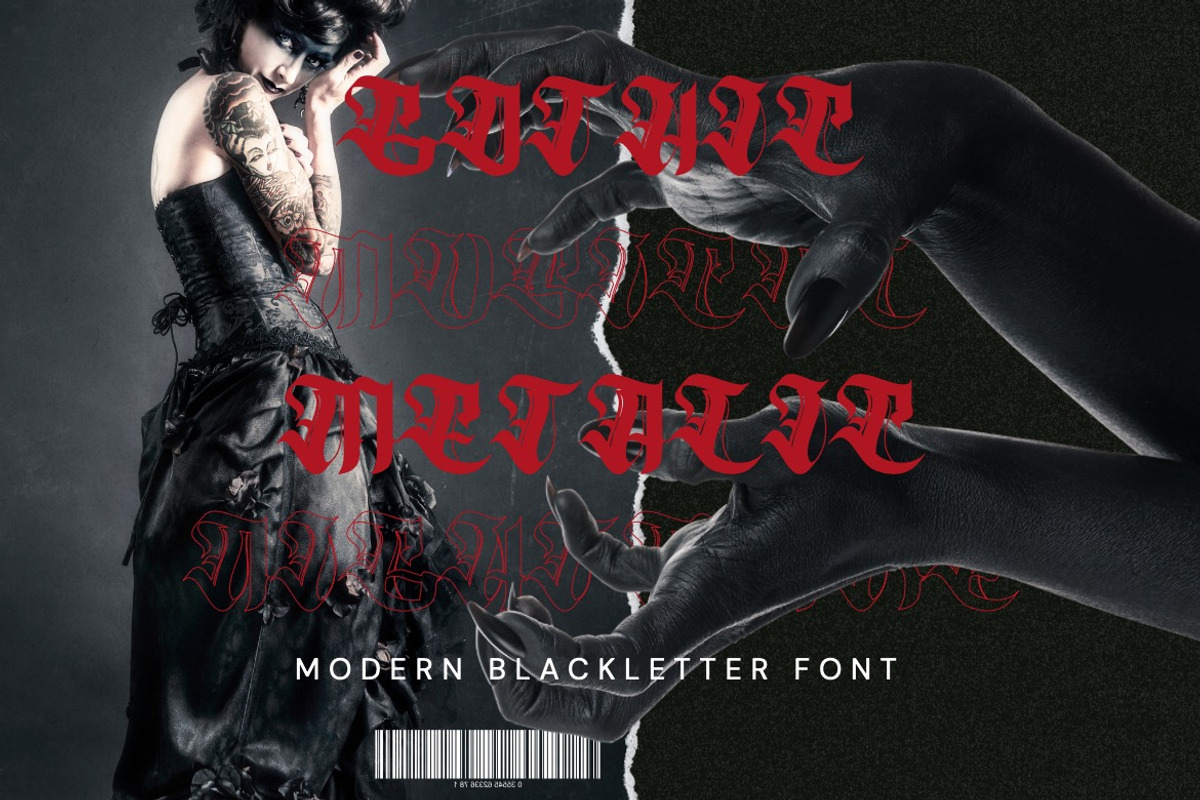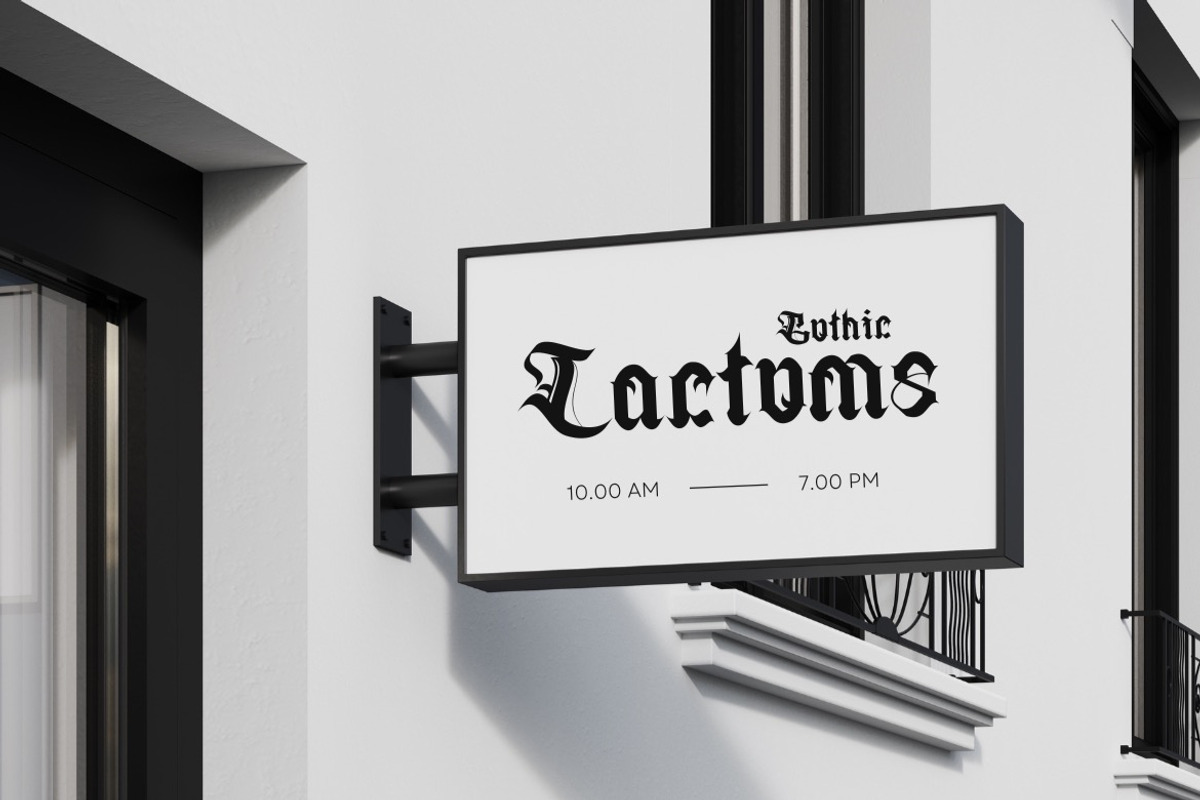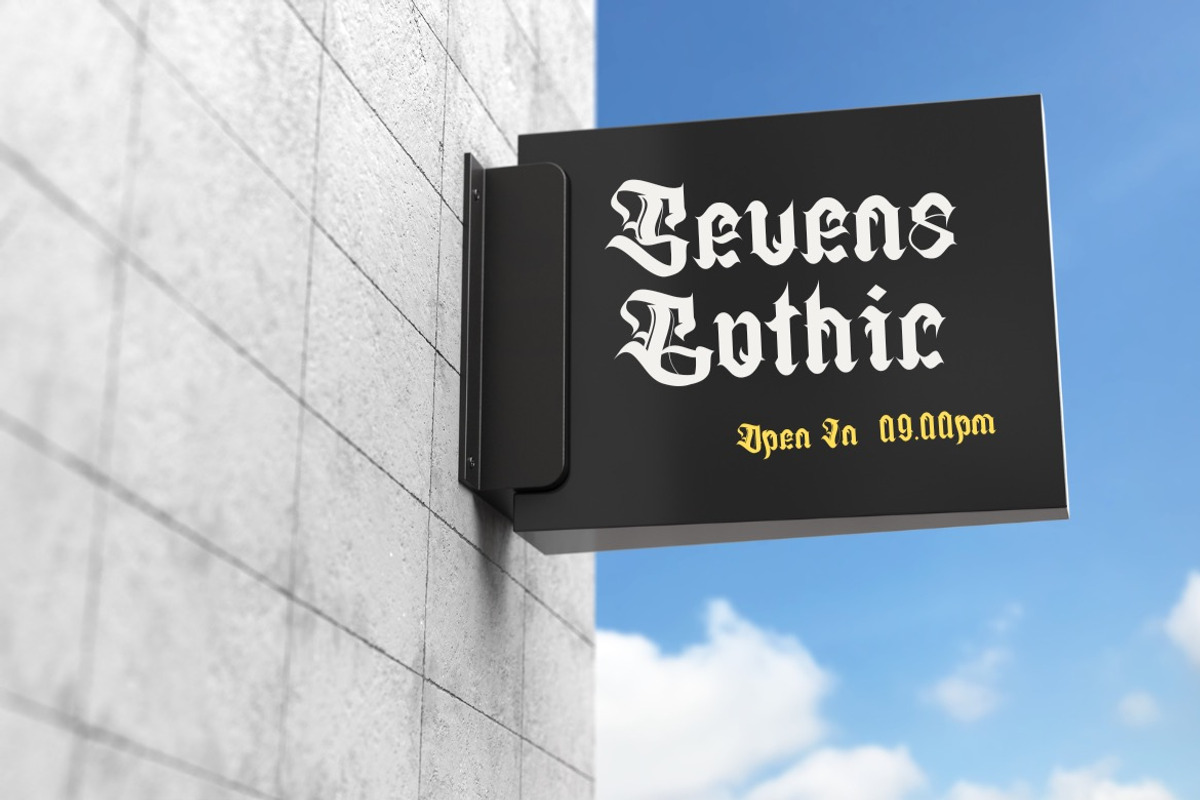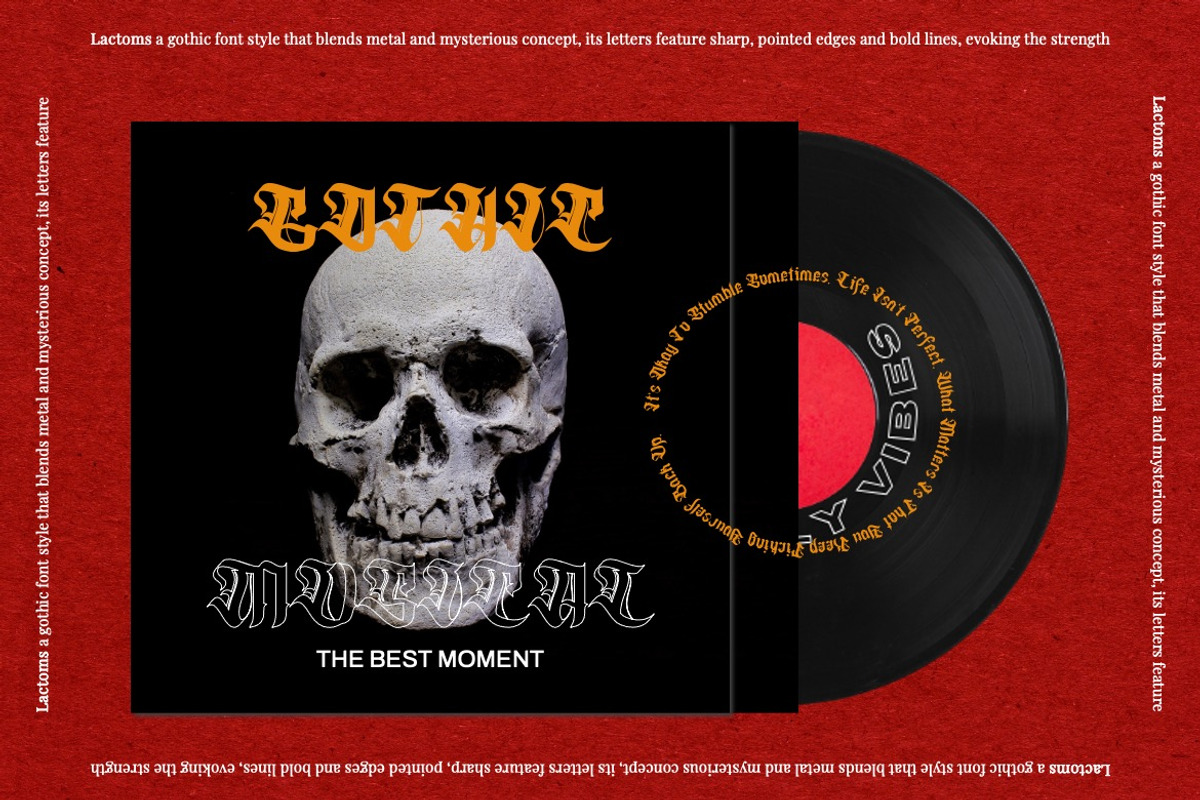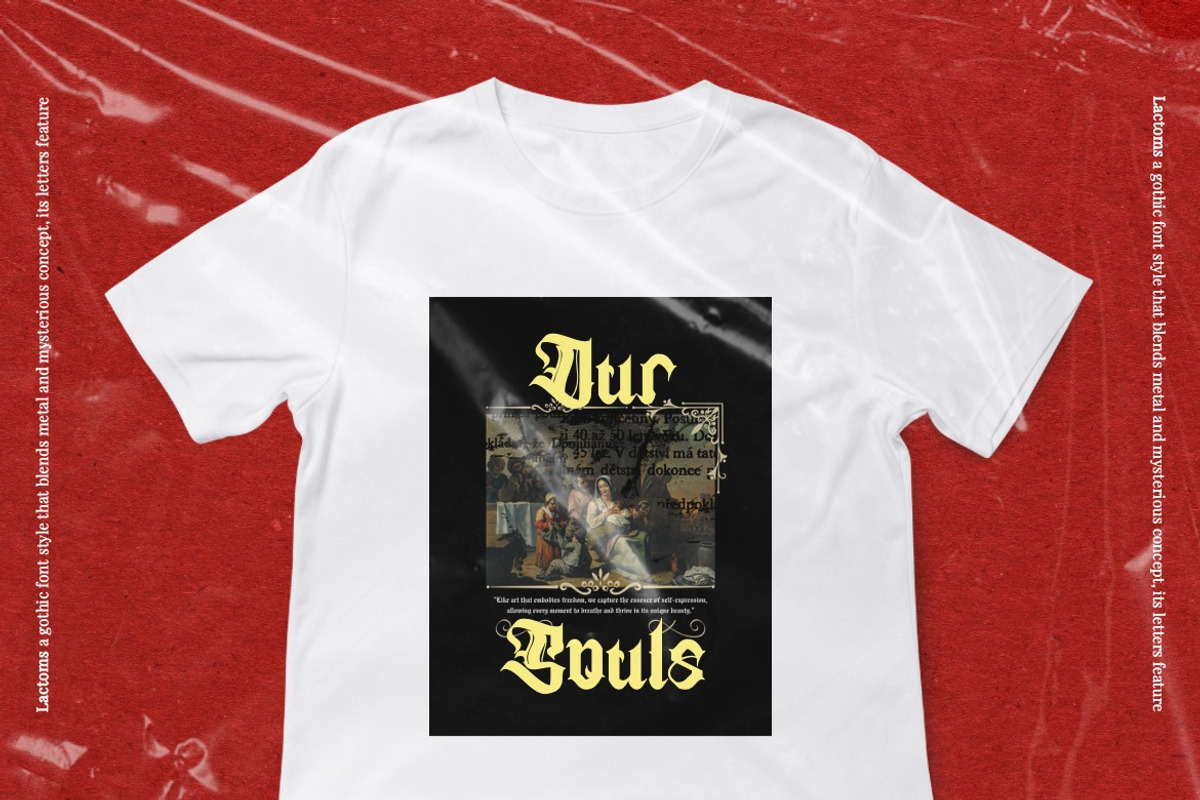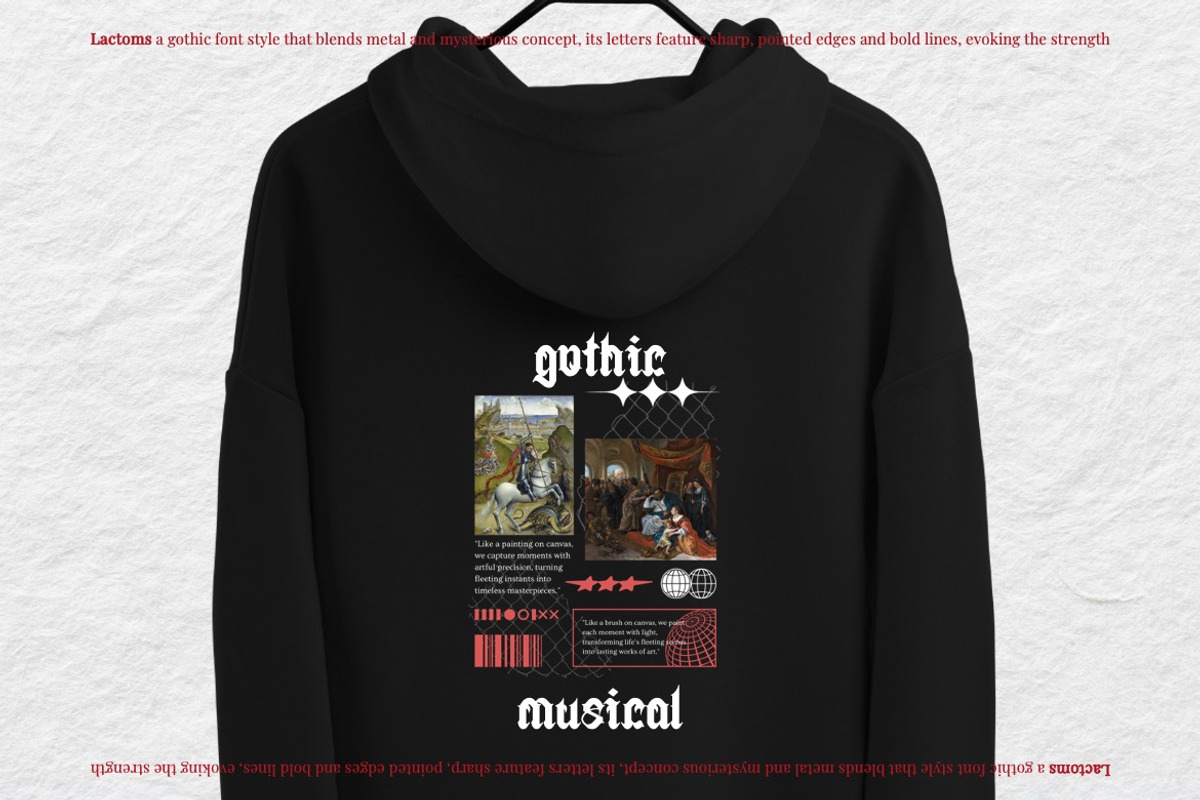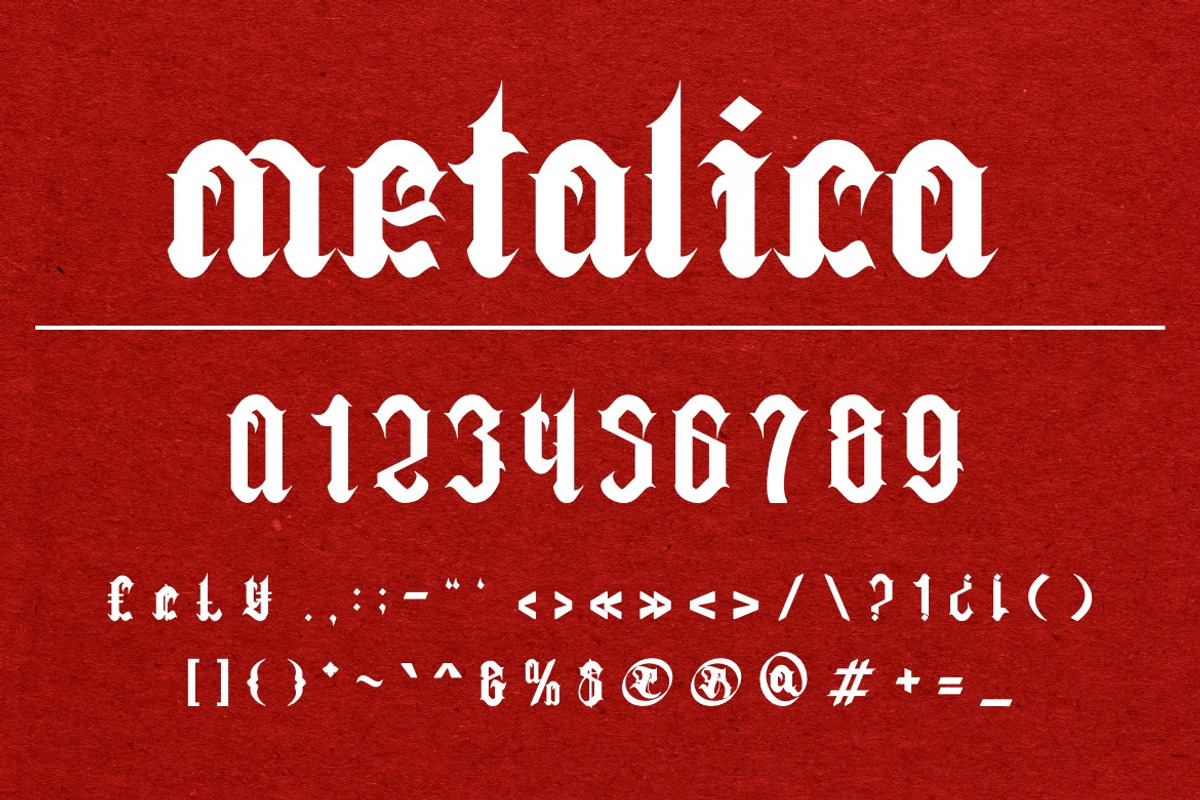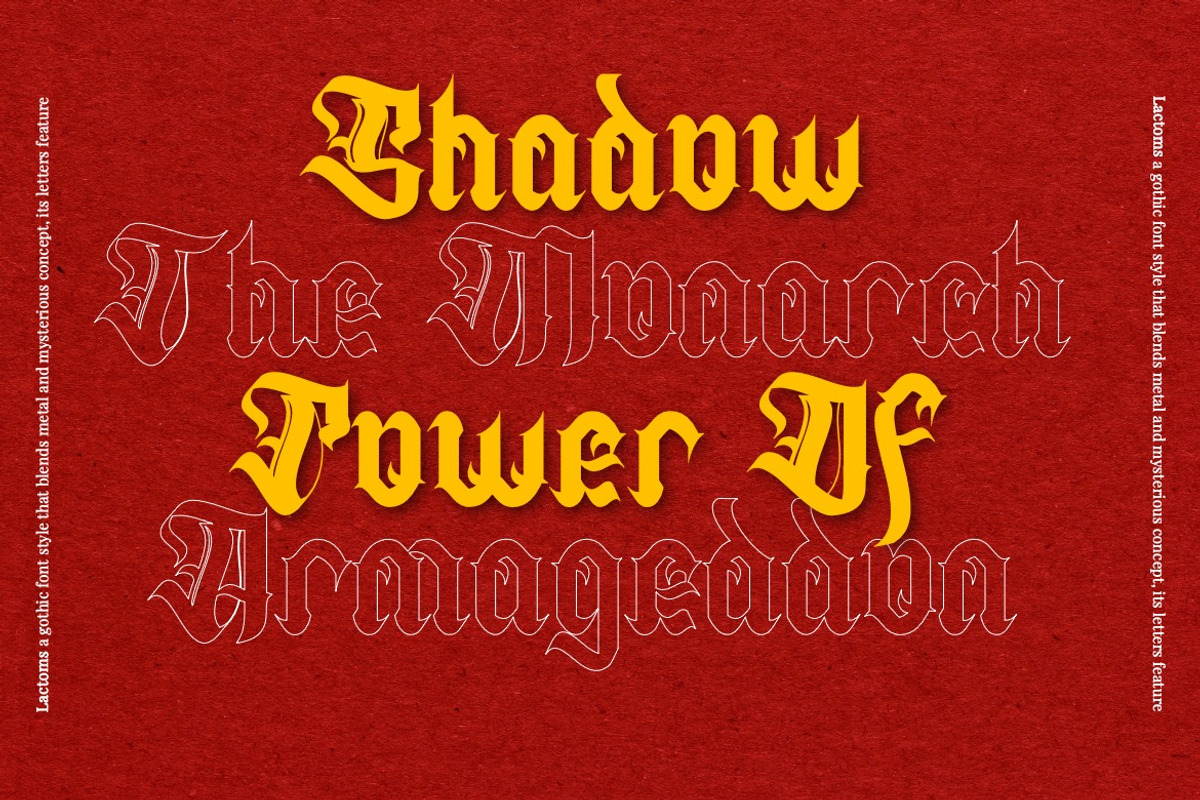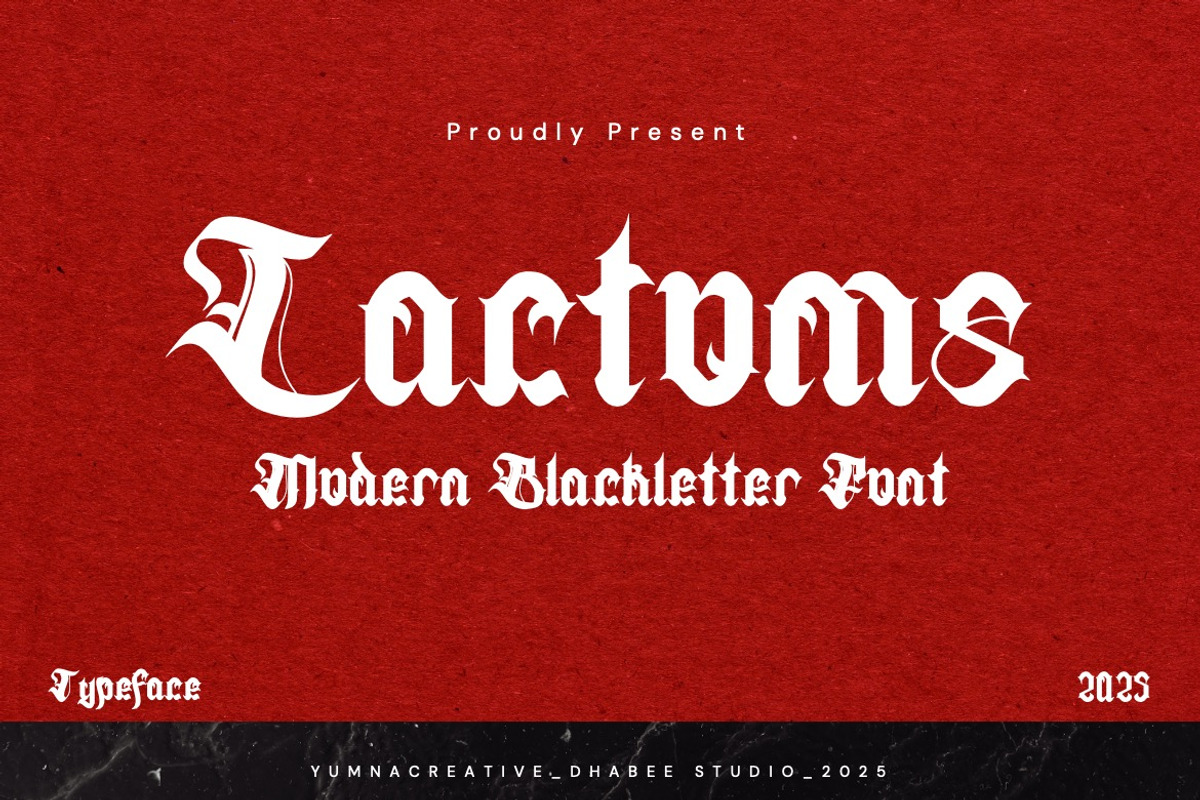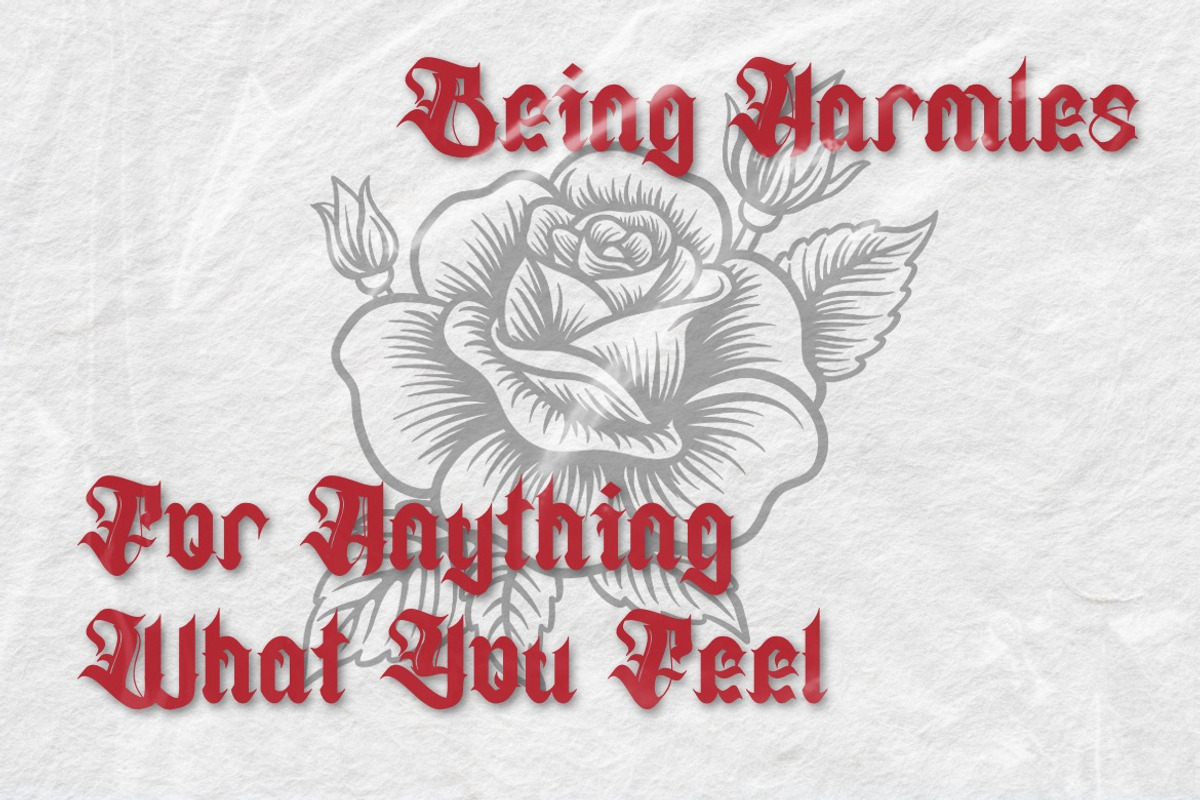
Lactoms - Modern Blackletter Font
Introducing Chroines - Classic Blackletter Font
Chroines - Classic Blackletter Font is a bold blackletter fraktur display font that merges traditional Gothic aesthetics with modern impact. Its intricate letterforms feature sharp angles, dramatic strokes, and striking contrasts, embodying strength, authority, and historical charm. The bold weight enhances its commanding presence, making it ideal for designs that demand attention and sophistication.